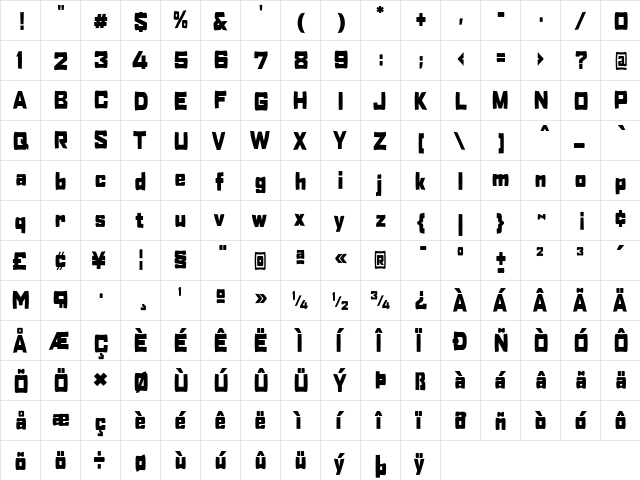
H0bby of night Regular
| Designer | deFharo |
Design Context for H0bby of night Typeface
H0bby of night offers clean, dependable letterforms without strong stylistic allegiance, making it a practical choice for designers who need flexibility.